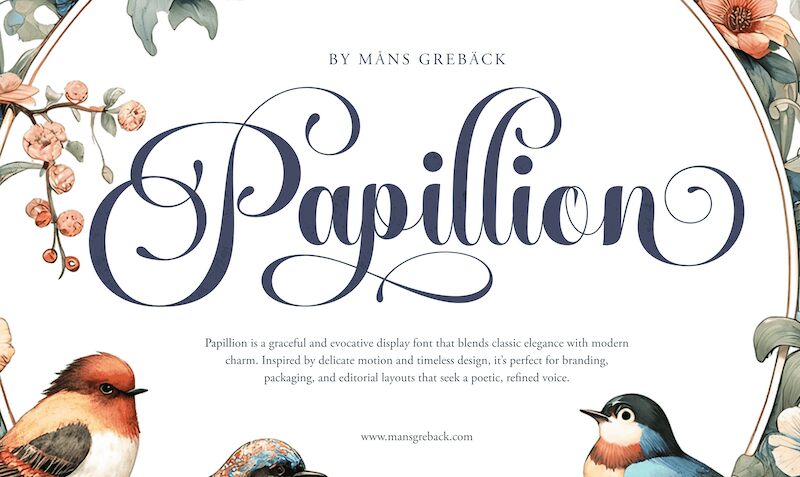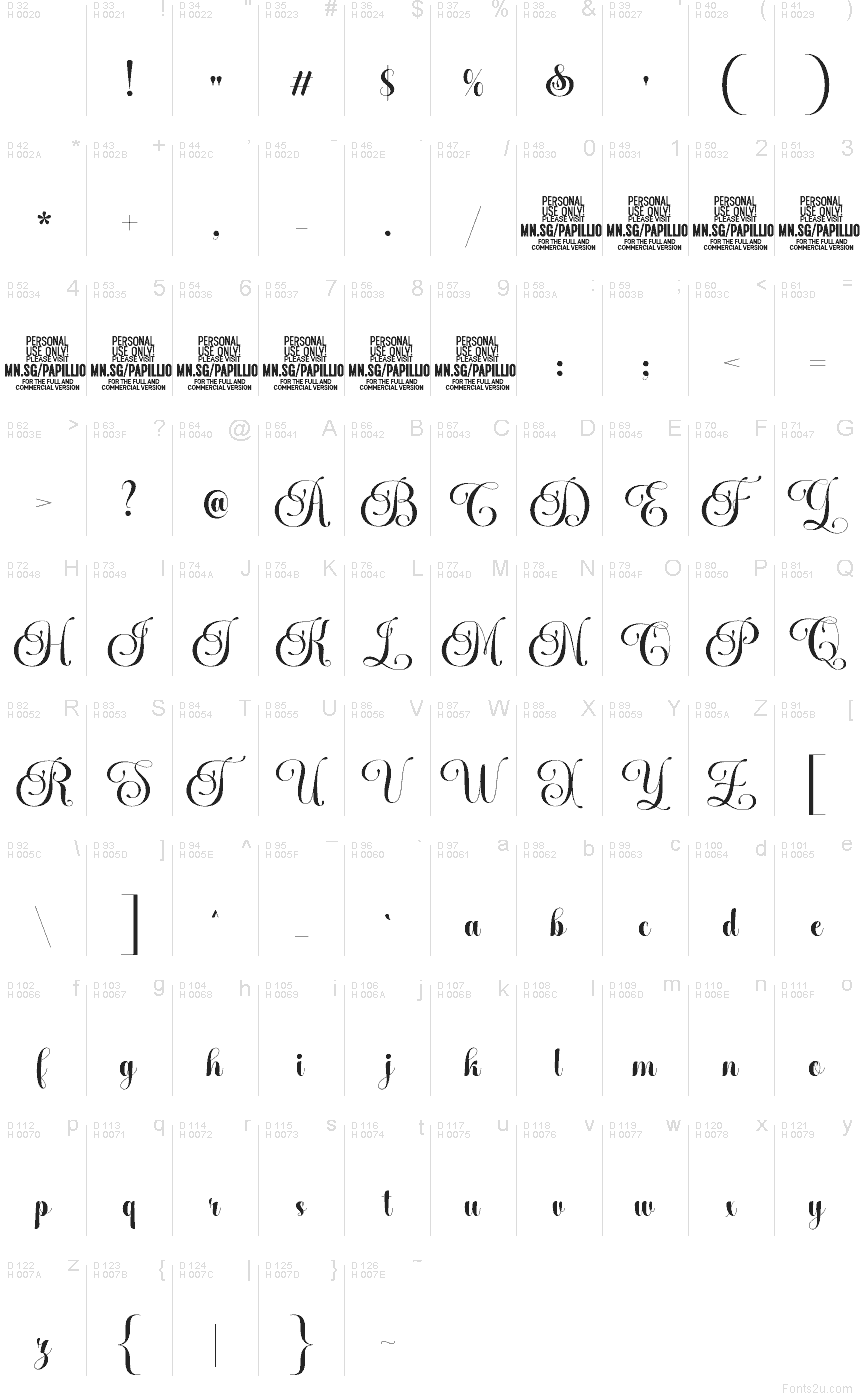
Papillion font by Mans Greback is a free calligraphy typeface that feels like it was drawn with a loaded, inky brush. Huge looping capitals sweep across the line, while the lowercase letters stay tight and legible, giving the script both drama and control. The strokes are lush and velvety, with a strong sense of motion that makes every word look staged and intentional.
Using Papillion, you can give wedding invitations, save‑the‑dates, boutique logos, perfume or cosmetic packaging, event posters, and social media graphics an instant sense of romance and polish. This free font shines when set large, where its swirls can breathe; pair it with a clean sans serif for body text to keep layouts elegant and easy to read.